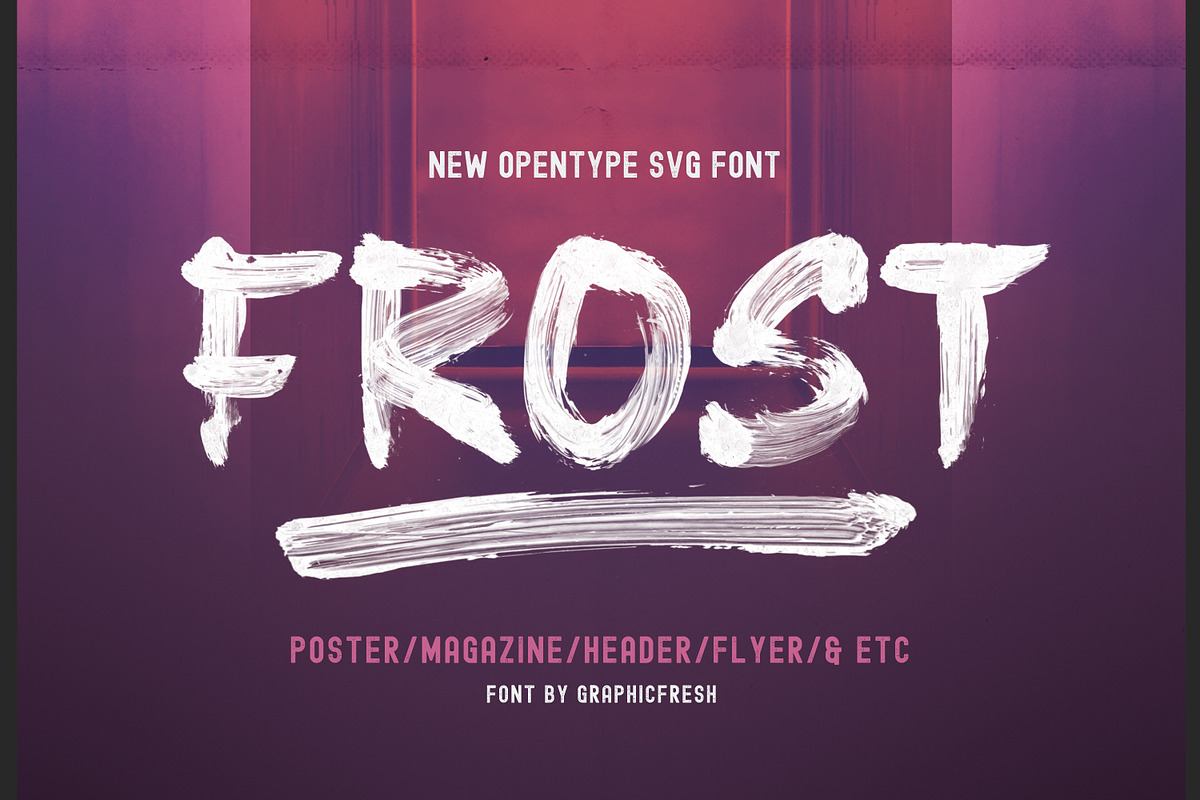
Frost SVG Font + Brushes Free Download is a stunning font that combines a hand-drawn, winter-inspired design with the flexibility of SVG color formatting. Perfect for creating snow-themed designs, holiday branding, social media graphics, and other creative projects that need a touch of wintry elegance.
The SVG version of the font offers intricate details, giving it a frosty, textured look that mimics ice and snow, ideal for seasonal promotions or any design looking for a wintry aesthetic. Along with the font, the brushes provide additional elements to enhance your design work, allowing you to add snowflakes, icy effects, and decorative flourishes that complement the font’s style.
The Frost SVG Font + Brushes bundle includes uppercase and lowercase letters, numerals, punctuation, and additional design elements. Whether you're designing a holiday greeting card, a cozy winter brand, or eye-catching promotional material, this font adds a frosty touch that makes your design stand out.